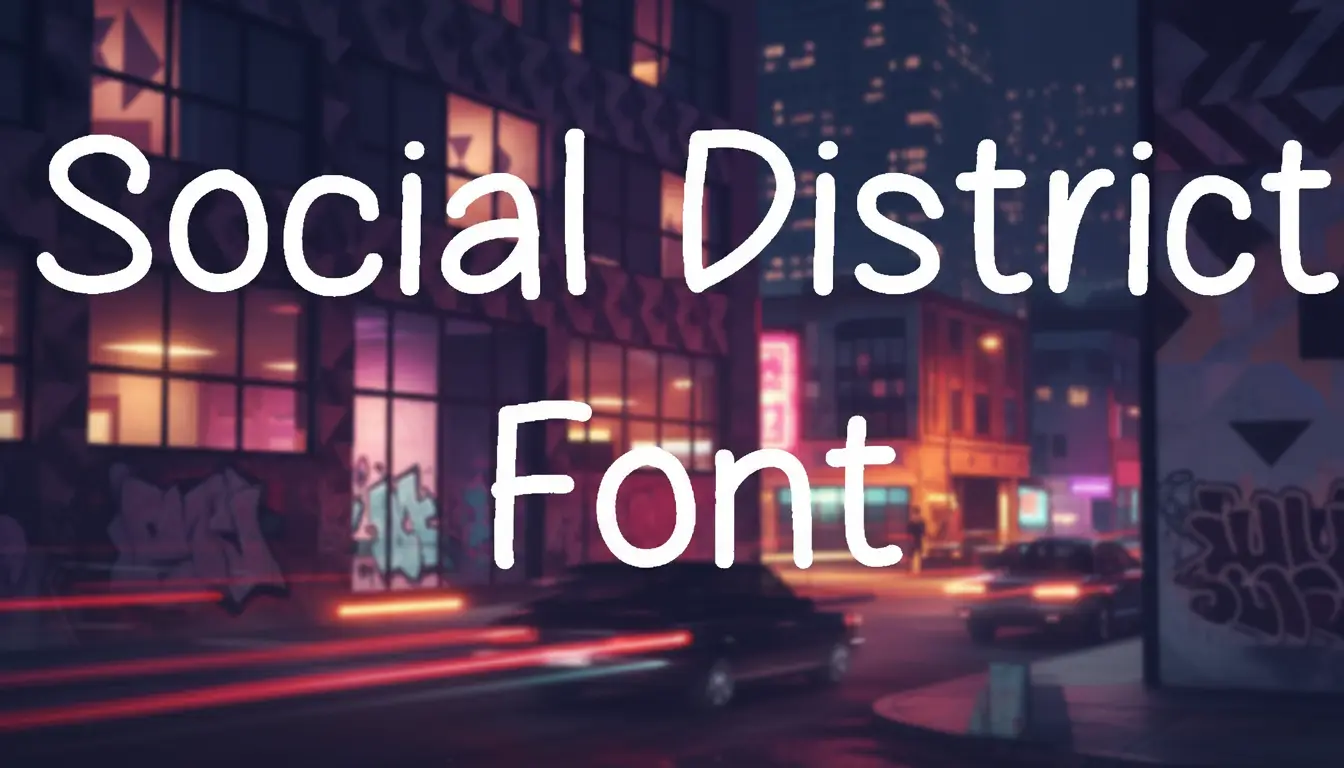
Social District Font
Social District
Social District is a handwritten font created by MJType (Muhamad Junaid). It looks like someone actually wrote it by hand: relaxed, friendly and a little imperfect in a good way. You can download it for free and test it with your own words in the preview above.
Social District Font Details
- Designer: MJType (Muhamad Junaid)
What You Can Type With Social District
With complete upper and lowercase letters and all ten digits, Social District is ready for real wording, not just a single headline. Common punctuation such as &, !, ? and @ is included as well. It also has the accented letters you need for Spanish, French, German, Portuguese and Italian.
Where Social District Works Best
Designers usually reach for fonts like Social District when they're making greeting cards, journal pages and friendly social posts. Set it a bit larger than you would a normal text font. Handwriting styles lose their charm once they get too small to read comfortably.
Does Social District support accented letters?
Yes. Social District includes the accented letters needed for Spanish, French, German, Portuguese and Italian, so it works for more than just English.